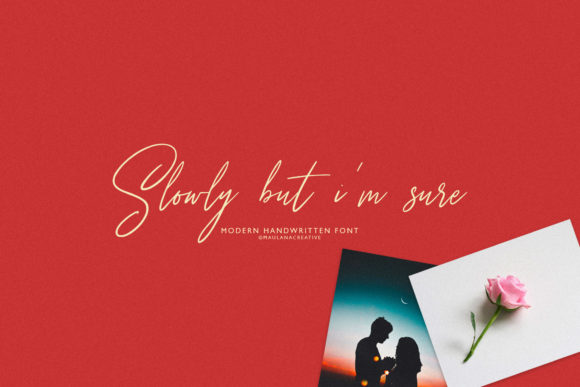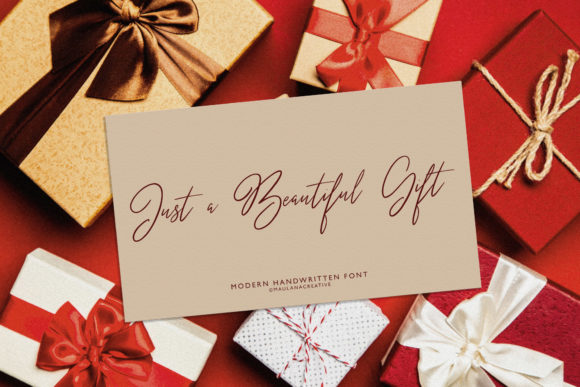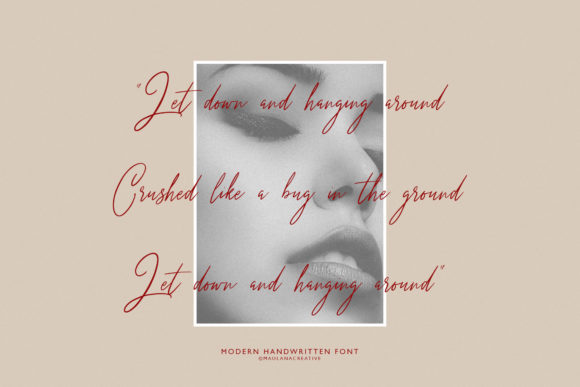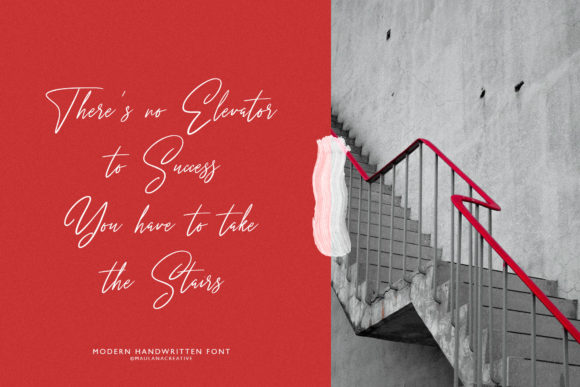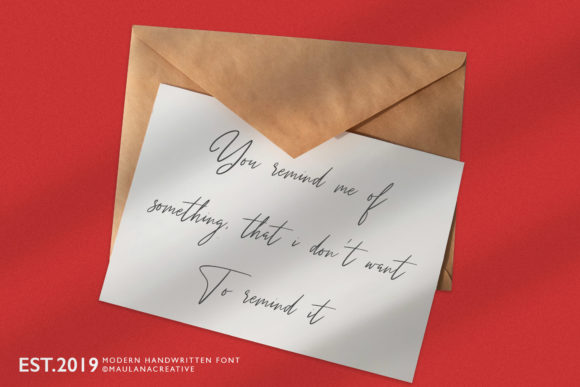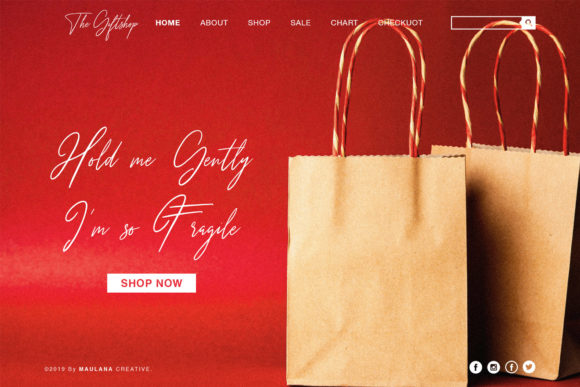
The Handcrafted Charm of Arctics Font
An Honest Review of Arctics Font
- ✨ Unique yet legible: Arctics Font strikes the perfect balance between being distinctive and easy to read.
- ✅ Modern simplicity: The clean lines and minimalist aesthetic make it perfect for modern designs.
- 💕 Handcrafted feel: The subtle imperfections and variations in the letters give it a warm, human touch.
While Arctics Font is an amazing font, there are a few things to keep in mind:
- 🤔 Limited character set: While the font has a wide range of characters, it may not have every special character or glyph you need.
- ⚠️ Not suitable for body text: Due to its unique design, Arctics Font is best used for headlines, titles, or short paragraphs.
- Take advantage of OpenType features like glyphs and stylistic alternates to add more variety to your design.
- Use the font to add a touch of elegance to your documents.
The Story Behind Arctics Font
Arctics Font was designed with the intention of creating a font that would capture the essence of handcrafted goods. The designer wanted to create a font that was both modern and nostalgic, with a unique character that would set it apart from more traditional fonts. The result is a font that feels both authentic and sophisticated.
Q: What makes Arctics Font unique?
A: Arctics Font is unique due to its handcrafted feel and modern simplicity. The font’s subtle imperfections and variations give it a warm, human touch.
Q: Is Arctics Font suitable for body text?
A: No, Arctics Font is best used for headlines, titles, or short paragraphs. Its unique design makes it less suitable for long blocks of text.